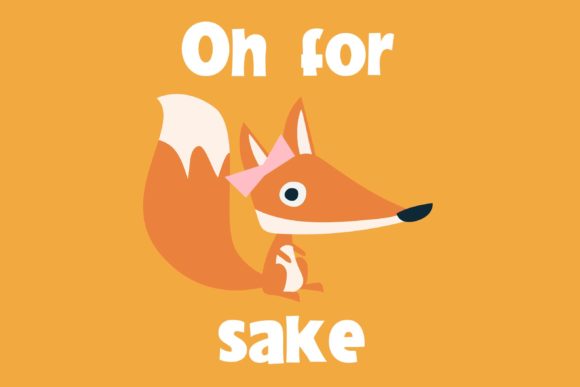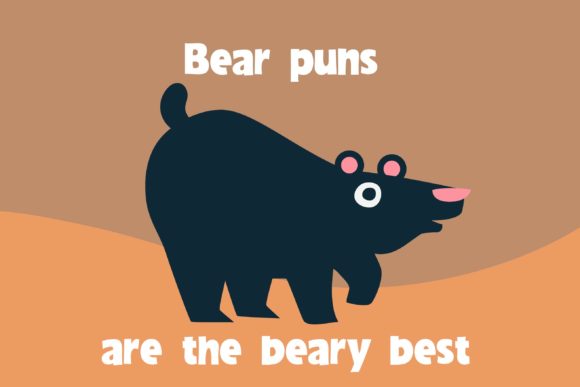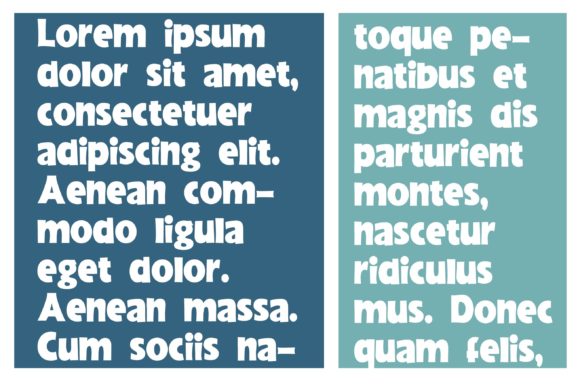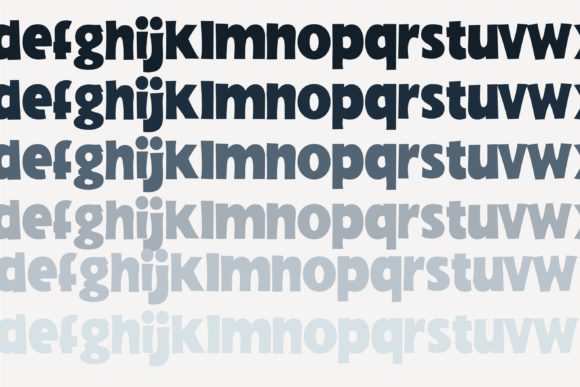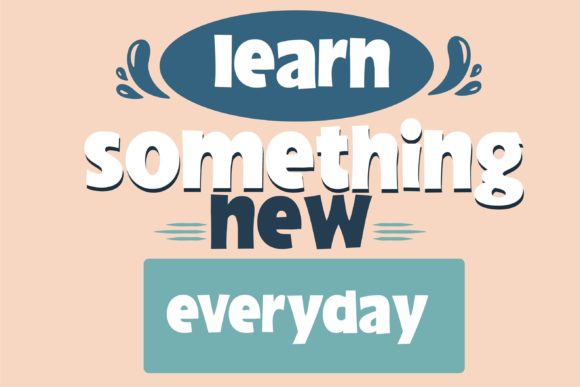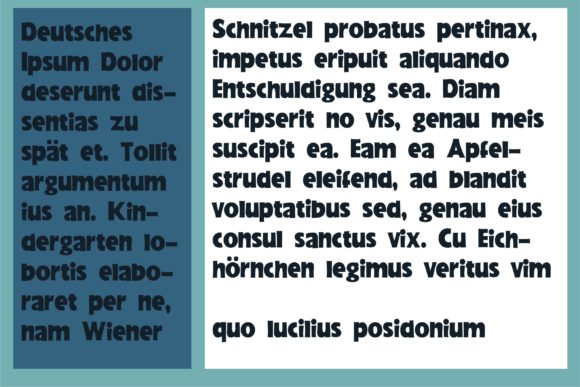
The Aloof Font: A Cool, Bold, and Thick Lettered Display Font
I’ll never forget the time I was working on a project for a trendy new coffee shop. I had a clear vision of a bold, eye-catching sign that would grab the attention of passersby, but I was struggling to find the right font. That’s when I stumbled upon the Aloof font. With its cool, bold, and thick lettered design, it was the perfect fit for the job. In this article, I’ll share my experience with the Aloof font, its features, and how to make the most of it in your designs.
An Honest Review of Aloof Font
What I Love About Aloof Font
- ✨ Bold and attention-grabbing: The Aloof font is perfect for making a statement. Its thick letters and cool design make it ideal for headlines, titles, and signage.
- ✅ Highly legible: Despite its bold design, the Aloof font is surprisingly easy to read, even at smaller sizes.
- 💡 Versatile: The Aloof font can be used in a variety of design contexts, from modern and edgy to playful and creative.
While the Aloof font is an excellent choice for many design projects, there are a few things to keep in mind:
- 🤔 Limited use in body text: Due to its bold design, the Aloof font may not be the best choice for body text or longer blocks of text.
- ⚠️ Careful with kerning: As with any bold font, kerning can be a bit tricky with Aloof. Make sure to adjust the spacing to ensure optimal readability.
The Backstory of Aloof Font
The Aloof font was designed with the modern designer in mind. Its creator wanted to craft a font that was both bold and elegant, perfect for making a statement in any design project. The result is a font that’s both cool and sophisticated, with a unique personality that’s hard to ignore.
Q: What is the Aloof font best used for?
A: The Aloof font is perfect for headlines, titles, signage, and any design project where you want to make a bold statement.
Q: Is the Aloof font suitable for body text?
A: While the Aloof font is highly legible, its bold design may not be the best choice for longer blocks of text. Consider using a lighter font for body text.
Q: Is the Aloof font available in different weights or styles?